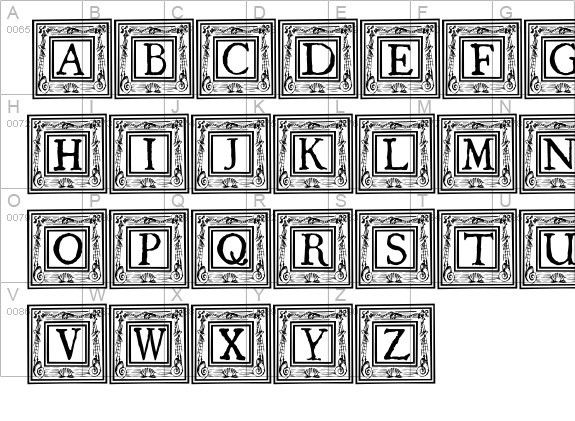
QuaNauticale_Initials_No1 Font Details
QuaNauticale_Initials_No1 is a captivating and exquisite font that will transport you to the depths of the sea with its graceful and fluid design. This font captures the essence of nautical elegance, making it the perfect choice for any project that requires a touch of maritime charm. With its intricate swirls and delicate curves, QuaNauticale_Initials_No1 exudes a sense of sophistication and artistry. Each letter is meticulously crafted to resemble the graceful movements of ocean waves, creating a harmonious and visually pleasing composition. This font is not only visually stunning but also highly versatile. Whether you are designing a logo for a luxury yacht company, creating beautiful wedding invitations, or designing a captivating book cover, QuaNauticale_Initials_No1 will effortlessly elevate your project to new heights. And the best part? QuaNauticale_Initials_No1 is freely available to download at FontsMarket.com. This means that you can bring a touch of nautical elegance to your designs without breaking the bank. So go ahead, dive into the world of QuaNauticale_Initials_No1 and let your creativity soar on the waves of this stunning font.